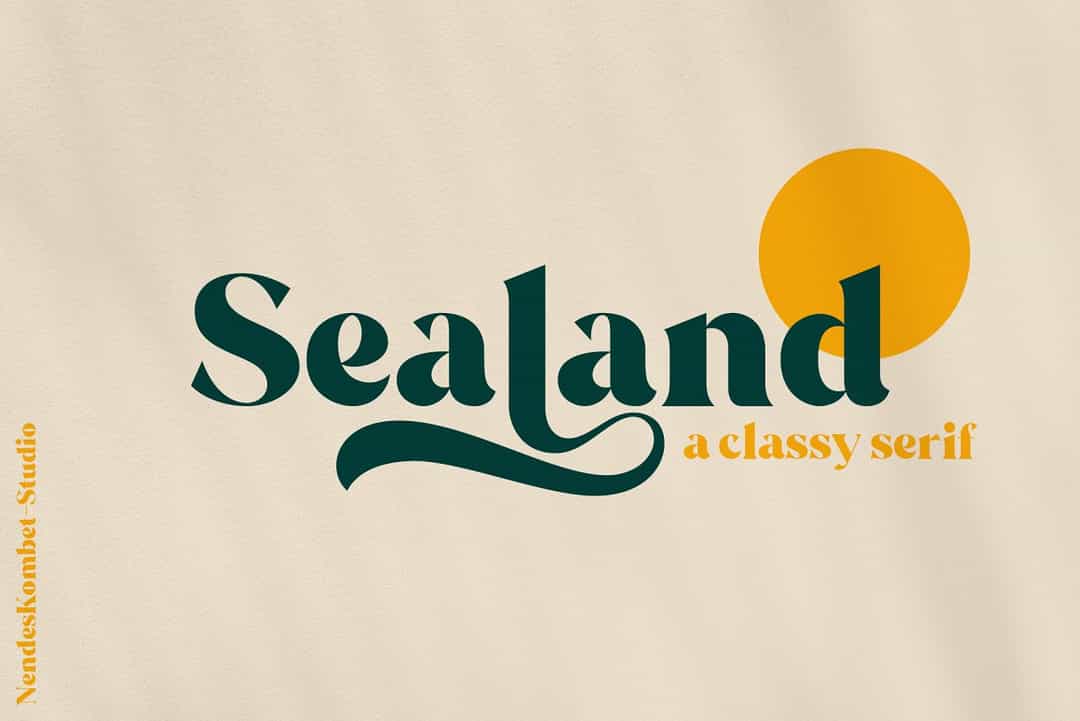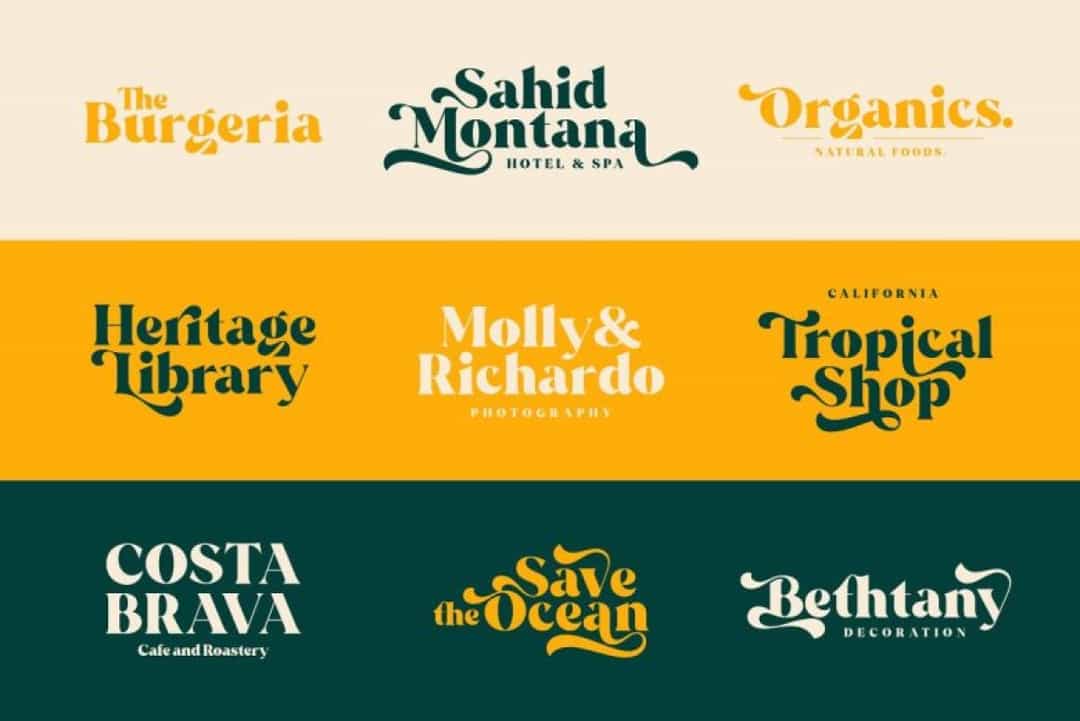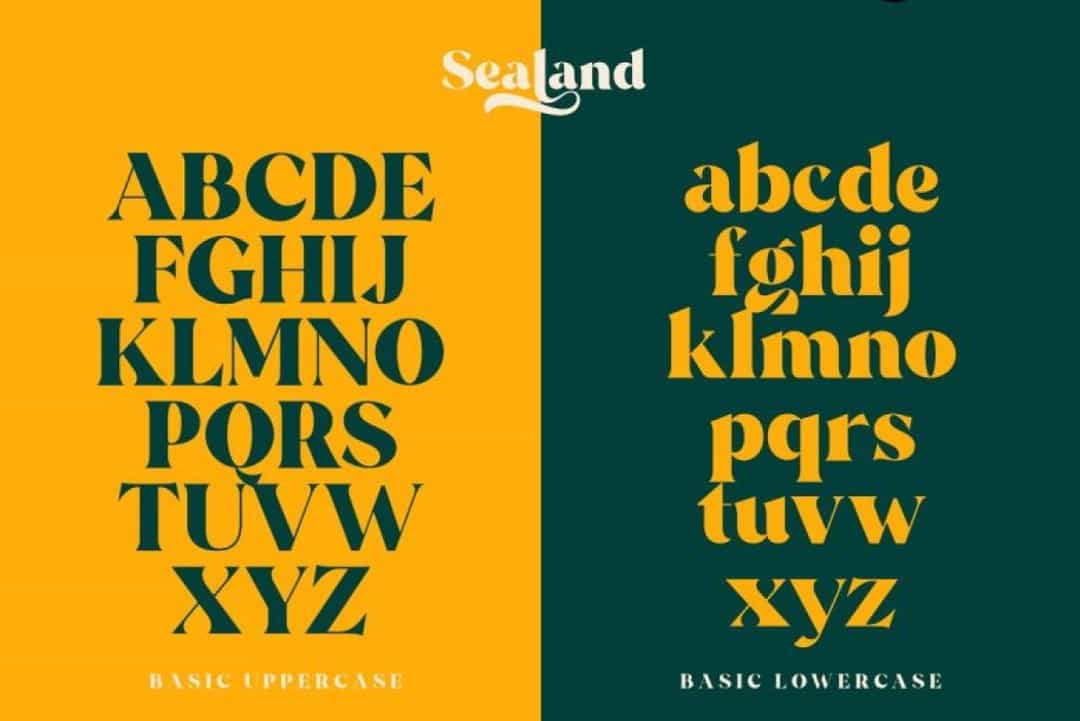
Sealand is an upper and lowercase serif font featuring beautifully balanced curves, inspired by letters that were popular in the past yet modern and stylish font. With its range of styles allowing for variety of designs it makes Sealand an excellent choice for headlines logos posters packaging T-shirts postcards etc.